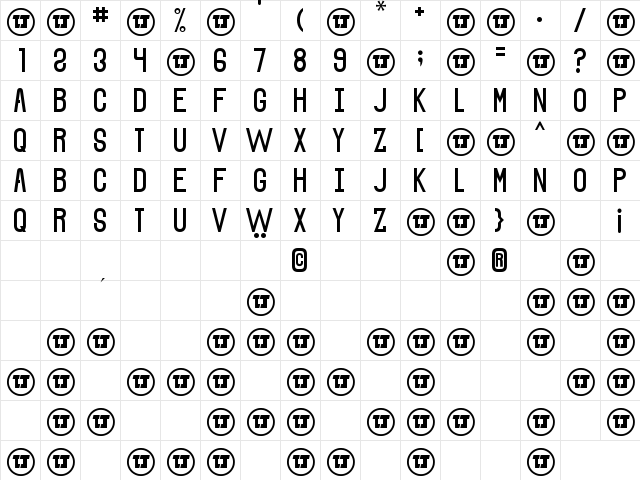
The Sound of Truth smooth
| Foundry | LJ-Design Studios |
| Designer | Luis Jaramillo |
Design Context for The Sound of Truth Typeface
The Sound of Truth offers clean, dependable letterforms without strong stylistic allegiance, making it a practical choice for designers who need flexibility.